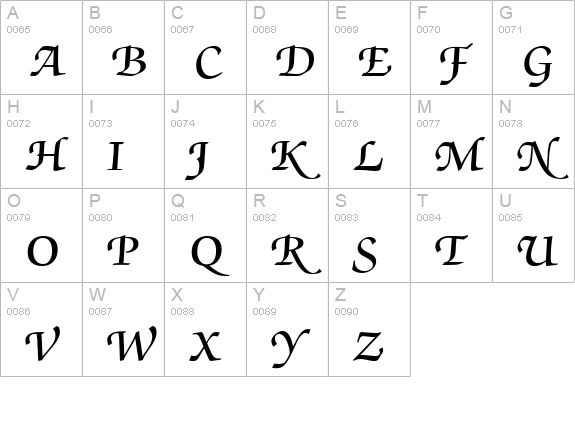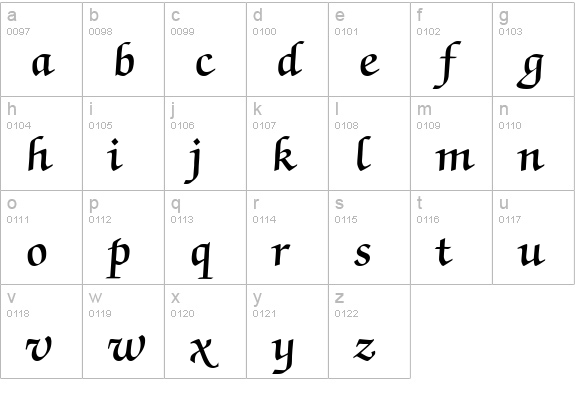
ZabriskieScriptSwash-Demi-Regular Font Details
ZabriskieScriptSwash-Demi-Regular is a sub-bold, structured variant in the ZabriskieScriptSwash typeface family \xE2\x80\x94 well suited to sub-headlines and emphasised passages.
ZabriskieScriptSwash-Demi-Regular is a stunning and elegant font that exudes sophistication and style. With its delicate swashes and intricate details, this font is perfect for adding a touch of luxury to any design project. The flowing script style of ZabriskieScriptSwash-Demi-Regular creates a sense of elegance and grace, making it ideal for formal invitations, wedding stationery, and branding materials. What makes ZabriskieScriptSwash-Demi-Regular even more appealing is that it is available for free download at FontsMarket.com. This means that you can easily access this beautiful font and use it in your projects without any cost. Whether you are a designer looking to add a touch of glamour to your creations or someone planning a special event, ZabriskieScriptSwash-Demi-Regular is sure to elevate your designs and leave a lasting impression. Download it for free today and experience the beauty and versatility of this exquisite font.